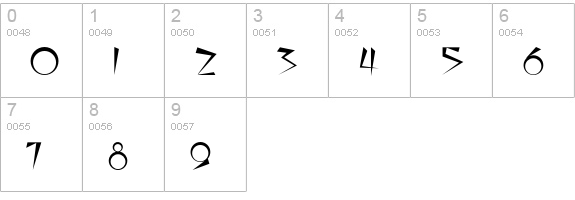
Introducing Sahara font, a stunning and versatile typeface that exudes elegance and sophistication. With its graceful curves and intricate details, Sahara font adds a touch of class to any design project. Whether you're creating a wedding invitation, branding materials, or signage, this font is sure to captivate your audience. But what sets Sahara font apart is not just its exceptional beauty, but also its accessibility. This font is available for free at FontsMarket.com, making it easily accessible to designers, enthusiasts, and anyone in need of a high-quality typeface. Now, you can elevate your designs without breaking the bank. Sahara font offers a wide range of glyphs and characters, ensuring that you'll find the perfect fit for any project. From uppercase and lowercase letters to numerals, punctuation marks, and special symbols, this font has it all. Its smooth and legible design guarantees readability across various mediums, from print to digital. Whether you're designing a logo, packaging, or website, Sahara font provides endless possibilities for creativity. Its versatility allows it to seamlessly adapt to any style or concept, while still maintaining its distinctive flair. The elegant and timeless nature of this font ensures that it will remain a staple in your font library for years to come. So why wait? Download Sahara font for free at FontsMarket.com and unlock a world of design possibilities. With its exceptional beauty, accessibility, and versatility, this font is a must-have for any designer or creative individual. Elevate your designs and make a lasting impression with Sahara font.